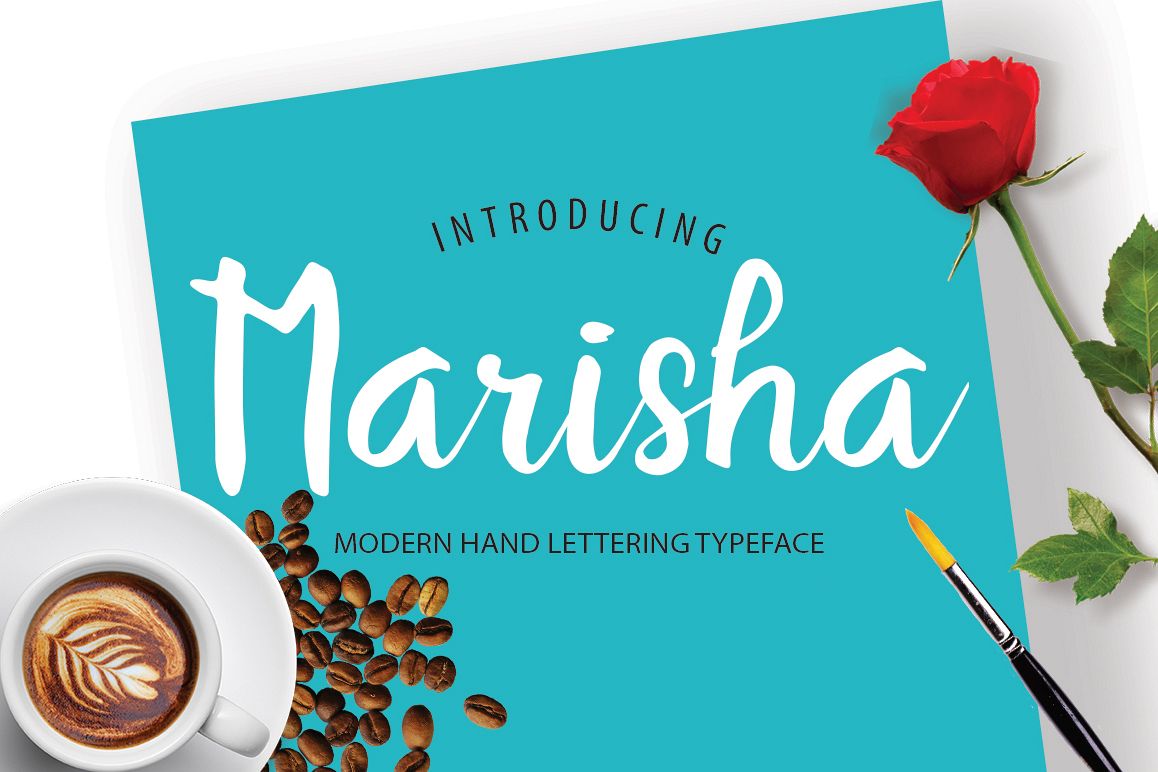
Marisha Script Font
Introducing.
Marisha is is a hand brushed typeface. Designed to work together in harmony to create awesome handlettered typographic designs.
You can be used for various purposes, such as headings, logos, wedding invitation, t-shirt, letterhead, signage, lable, news, posters, badges etc.